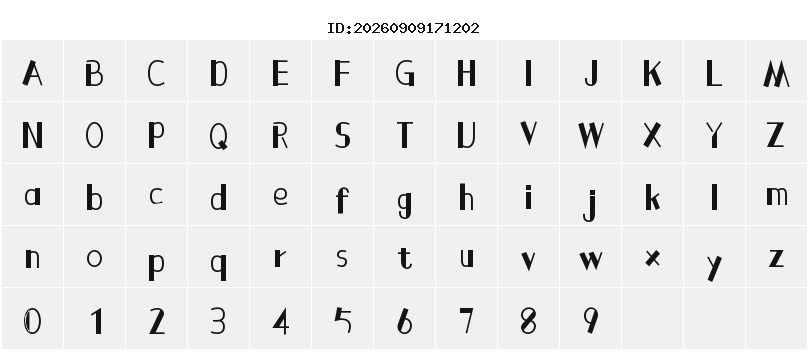
尔雅真知棒 Preview
• Font Name: 尔雅真知棒
• Full Font Name: eryazhenzhibang
• PostScript Name: eryazhenzhibang
About 尔雅真知棒.ttf
尔雅真知棒.ttf is a modern, elegant sans-serif font designed for ultimate readability and visual harmony. Perfect for branding, headlines, web design, and print materials.